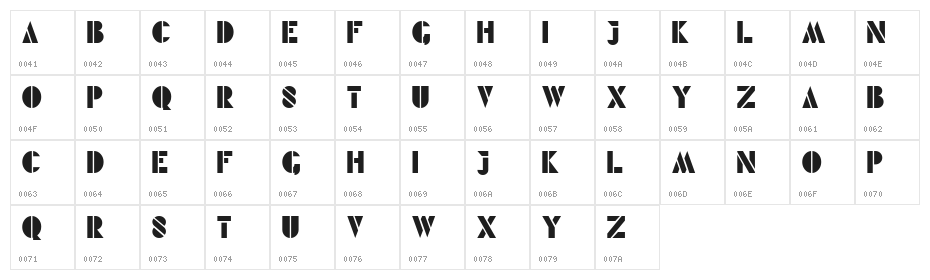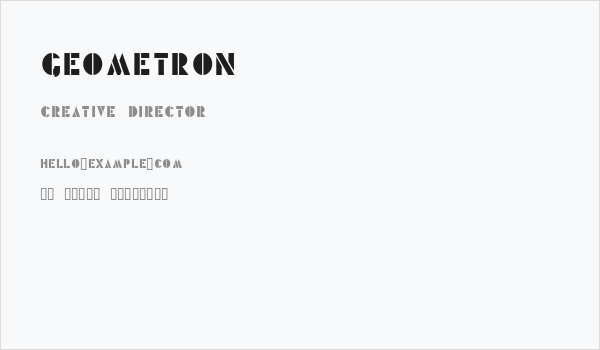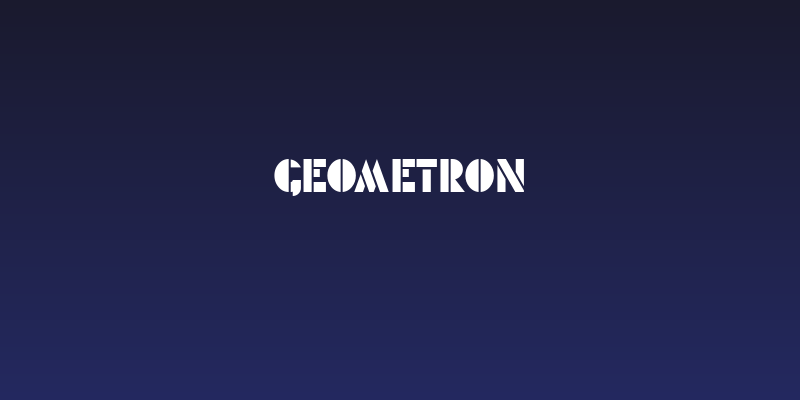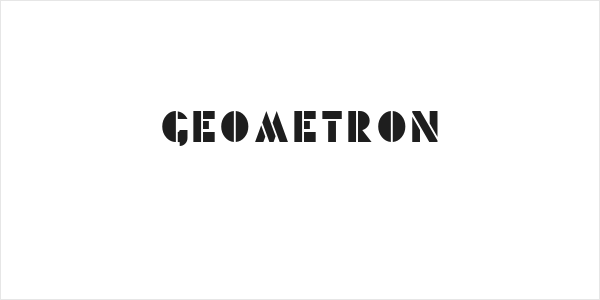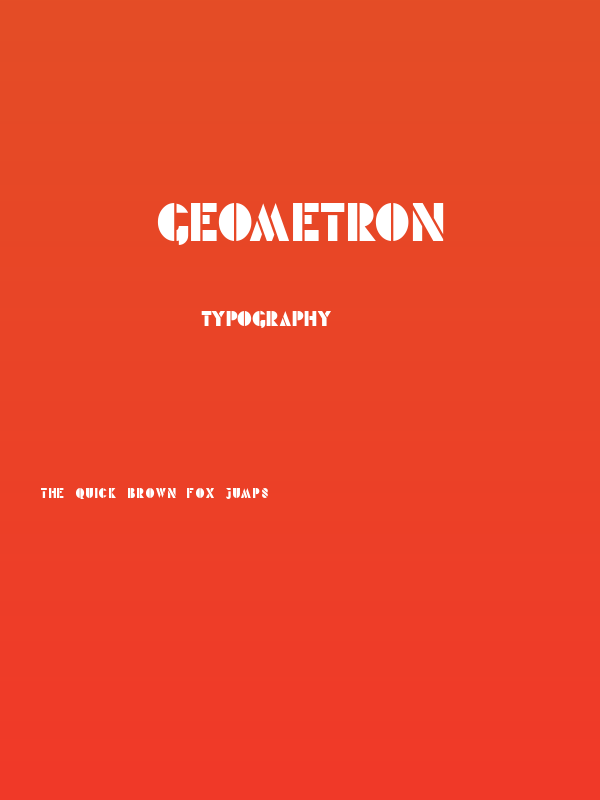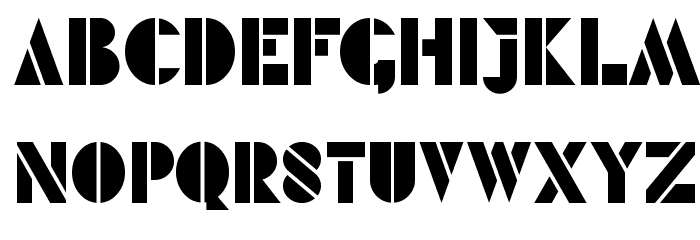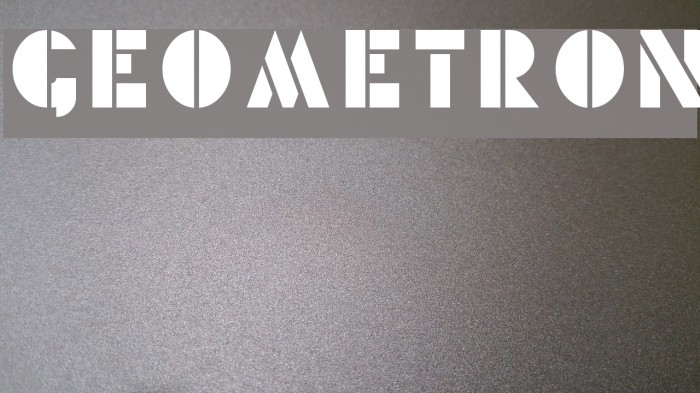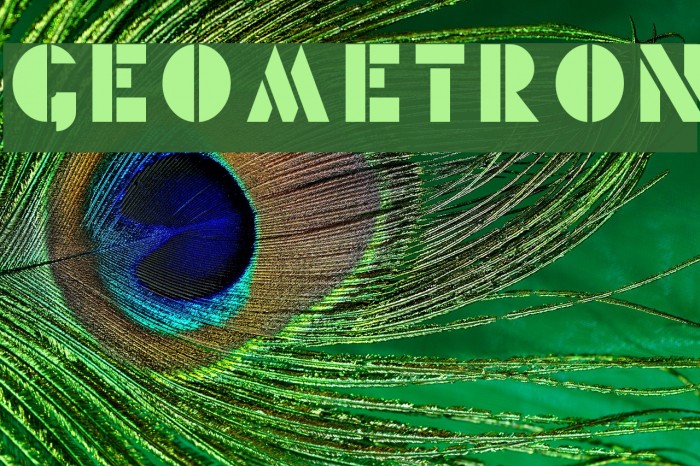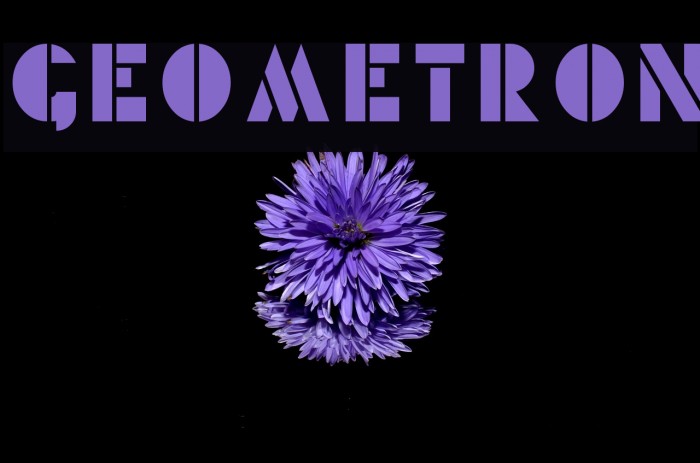
Geometron Font
Geometron Description
This font features a bold, geometric design with a strong emphasis on angular shapes and sharp edges. The characters are constructed using a combination of straight lines and precise angles, creating a modern and industrial aesthetic. The uppercase letters are particularly striking, with a uniform height and width that enhances their bold appearance. The font's design is consistent across all characters, maintaining a cohesive look that is both eye-catching and distinctive. The geometric nature of the font makes it ideal for projects that require a contemporary and edgy feel.
| Proposed Projects | Ideal for branding, posters, headlines, and any design requiring a modern, industrial look. |